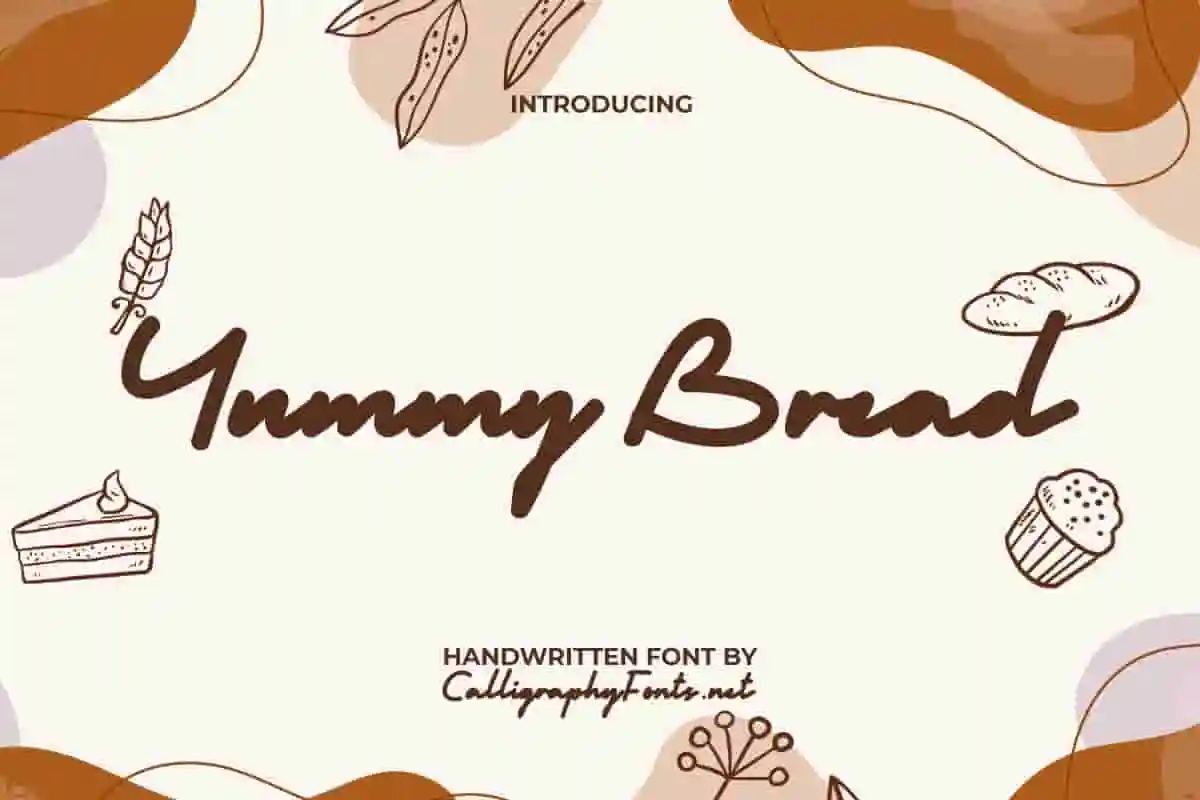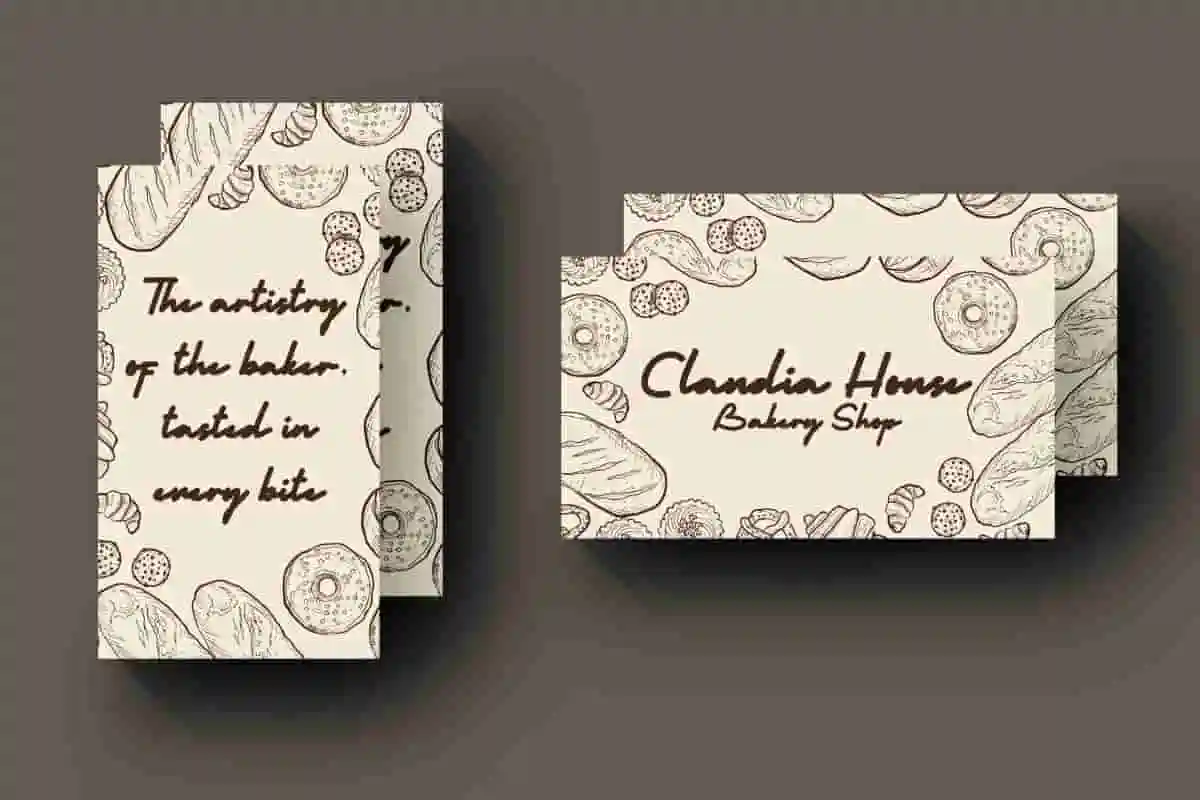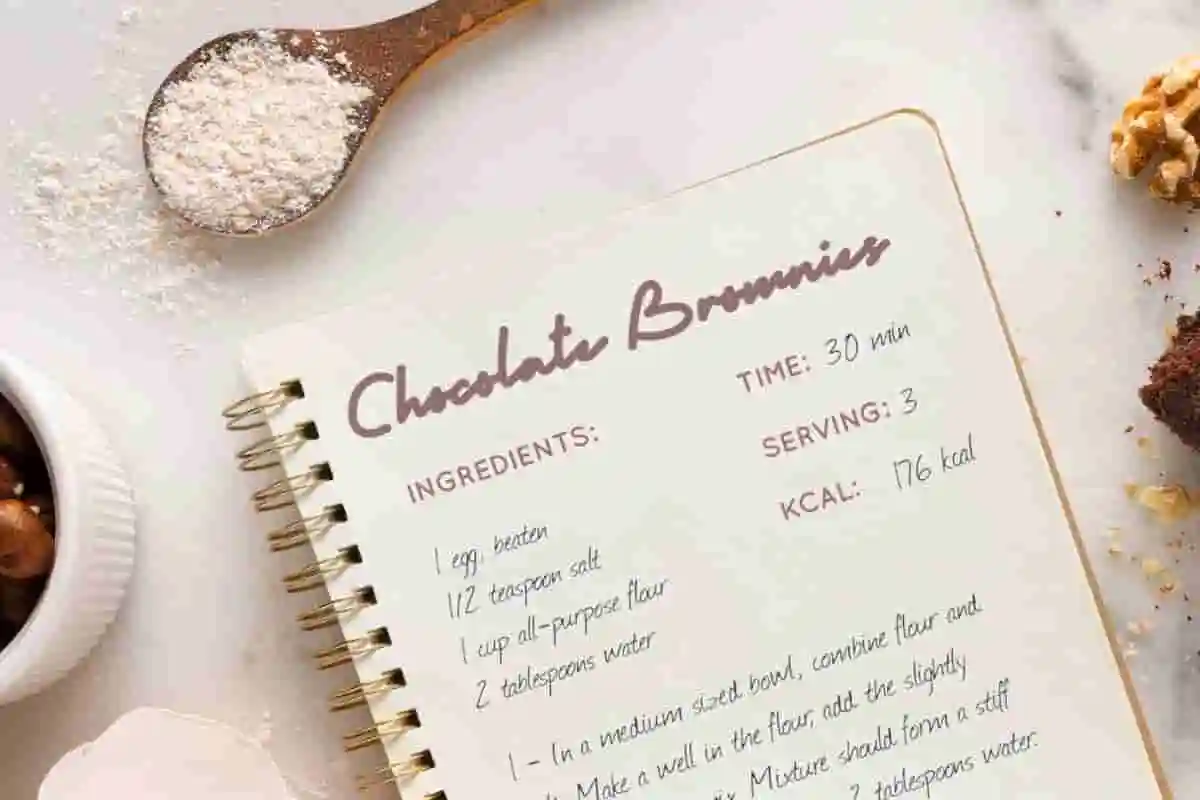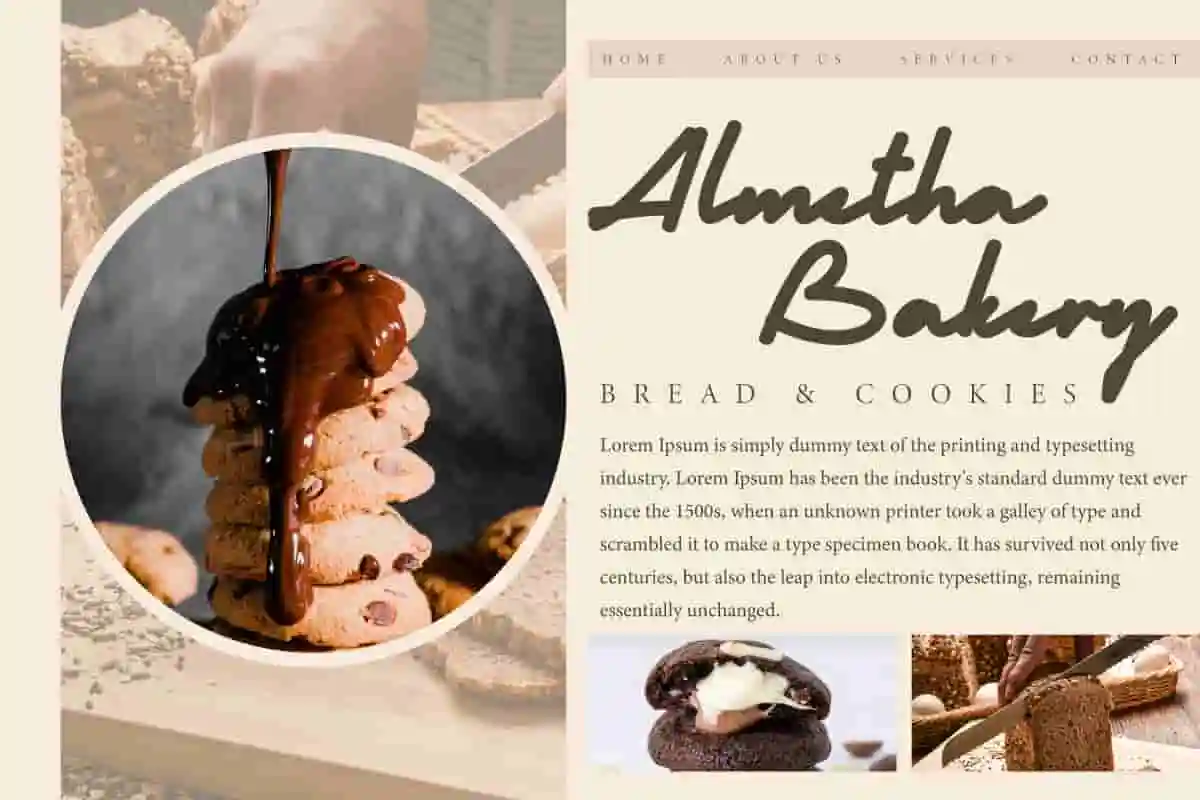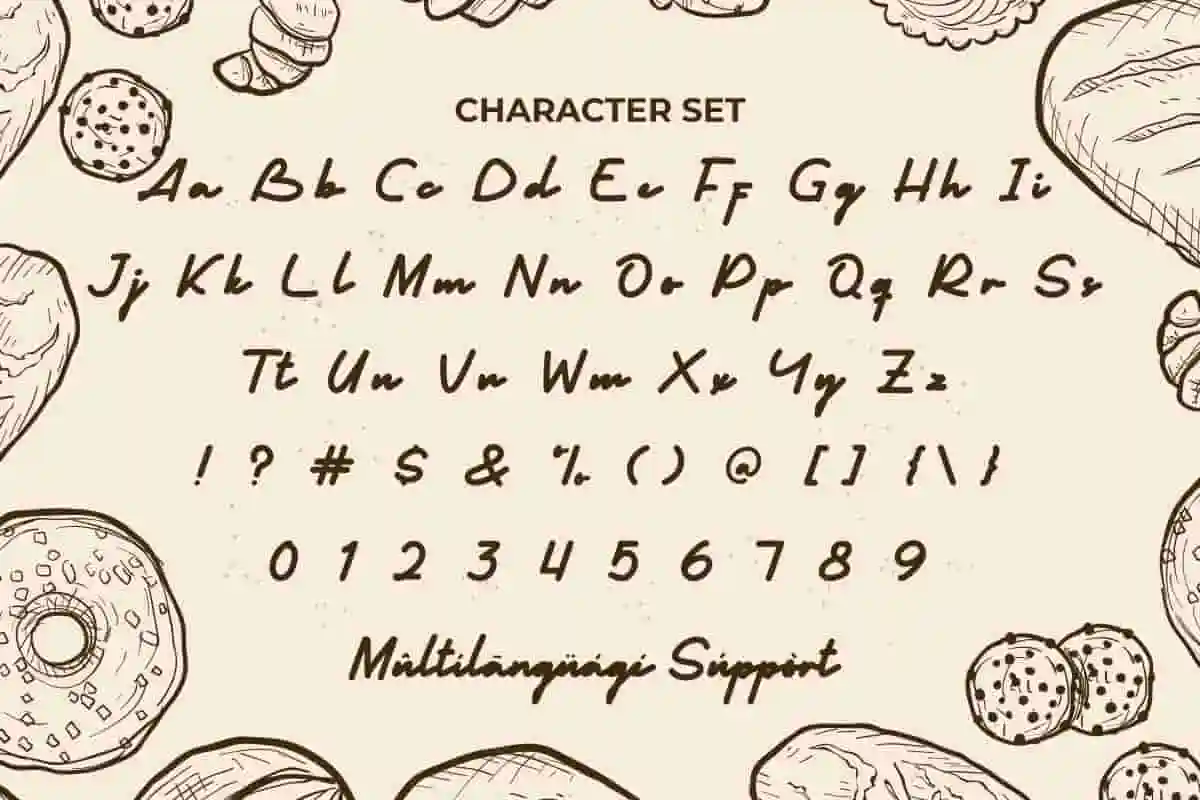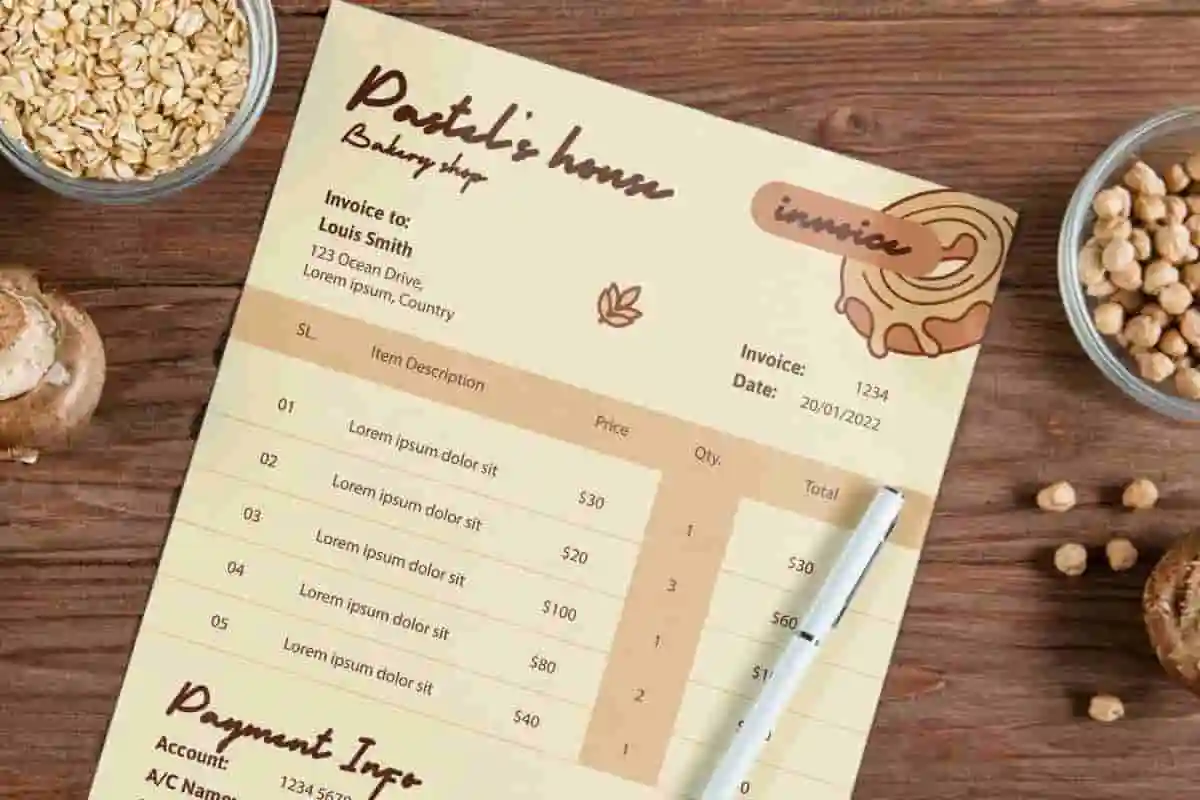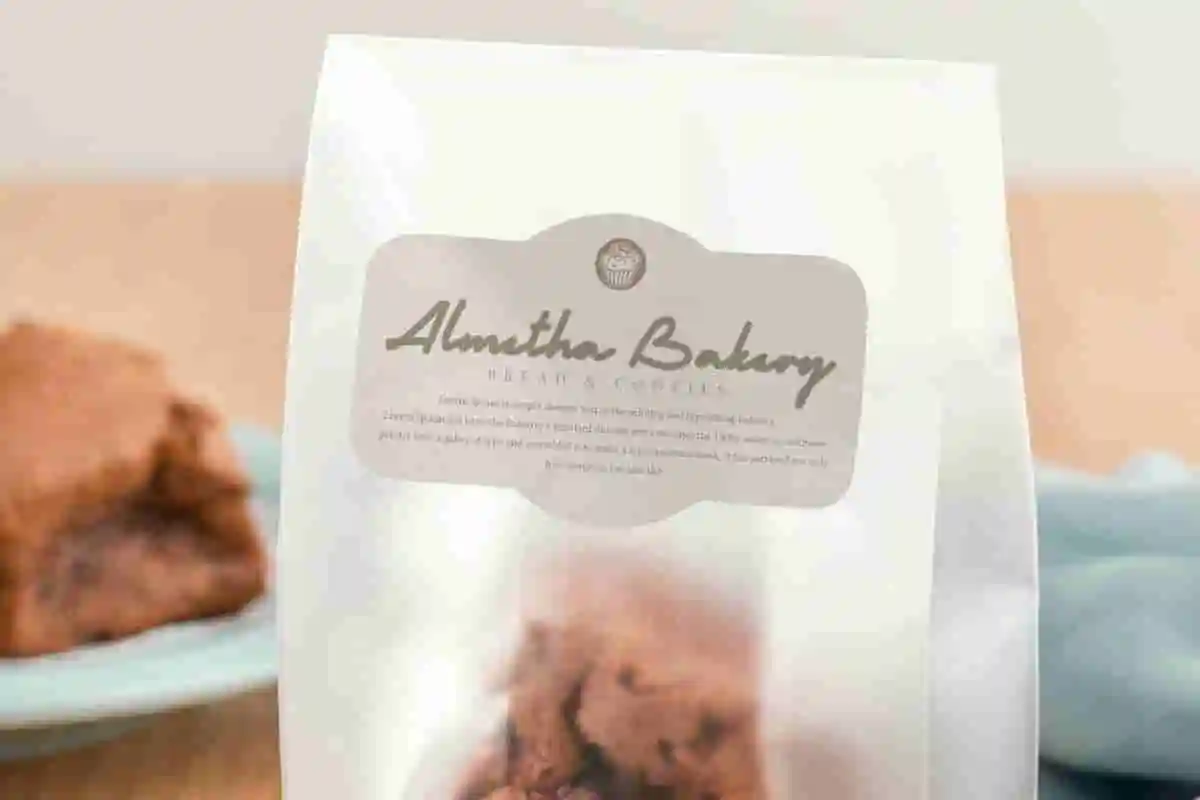
Yummy Bread Handwriting Font
Yummy Bread Font is a bold casual handwritten font with foodist theme that stands as a testament to the human touch with artistic expression. It will be perfect for branding product, promotion, signature and other needs.
Yummy Bread Font is a bold casual handwriting font that is slightly slanted similar to a signature. It’s like handmade using a cool marker with a wide round tip. These natural and realistic letter edge shapes are carefully crafted to give a classic touch to your designs, make this a part of your next font collection. Perfect for cards, labels, menus, title, website and more.
Introducing Yummy Bread Handwriting Font, a delightful and charming typeface that captures the essence of cozy mornings, fresh bakes, and heartfelt notes. If you’re looking for a font that combines warmth, personality, and a handmade touch, Yummy Bread is the perfect choice to sweeten up your creative projects.
This handwriting font is designed to look natural, soft, and inviting. Each letter flows seamlessly with a friendly vibe, making it ideal for branding, packaging, and personal projects. Imagine your café menu written in Yummy Bread, your bakery packaging adorned with this font, or your social media posts instantly gaining that homemade, heartwarming appeal. It’s not just a font—it’s a mood setter.
Whether you are a designer, small business owner, or content creator, Yummy Bread Handwriting Font is a versatile tool that elevates your work. It’s especially loved in the food and beverage industry, creative blogs, children’s projects, and lifestyle branding.
Yummy Bread Handwriting Font is a sweet handwriting font designed with authentic letterforms. It is perfect for enhancing visuals by bringing a bold and versatile artistic feel to your design projects. This handwritten font that is suitable for bakery, cafeteria, graphic design, handicraft, photography, restaurant and anything that requires a handwritten-style font appearance.